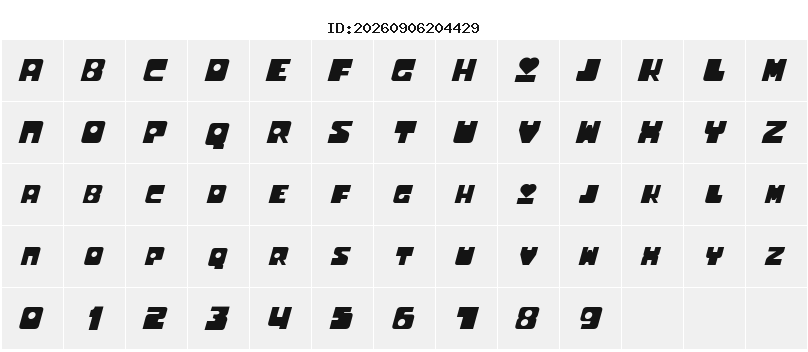
Utonium Preview
• Font Name: Utonium
• Designer: Neale Davidson
• Manufacturer: Pixel Sagas
About Utonium.otf
Utonium.otf is a modern, elegant sans-serif font designed for ultimate readability and visual harmony. Perfect for branding, headlines, web design, and print materials.